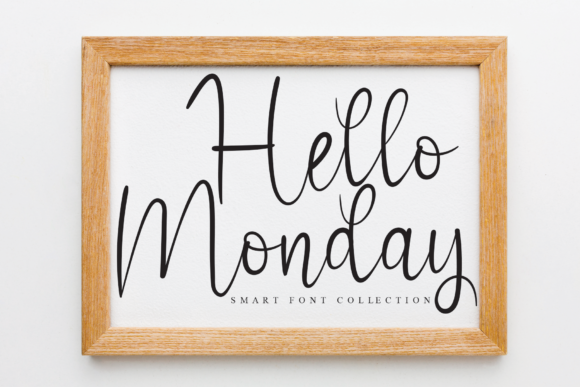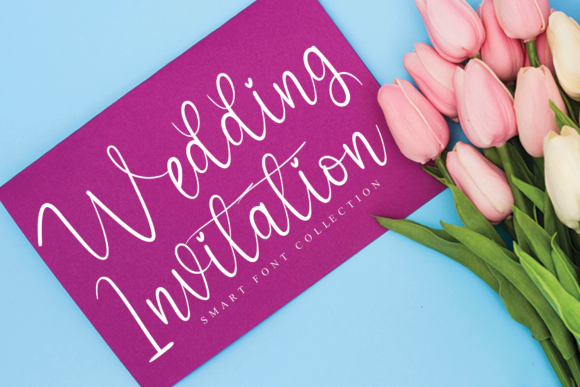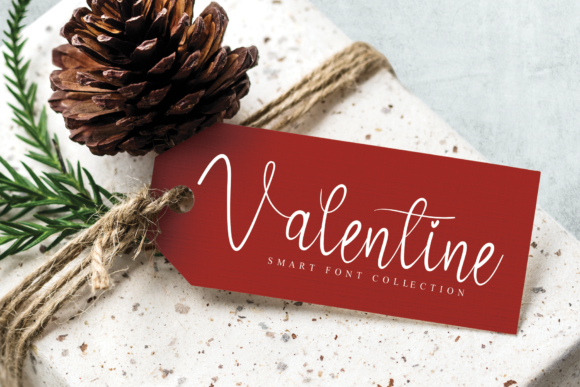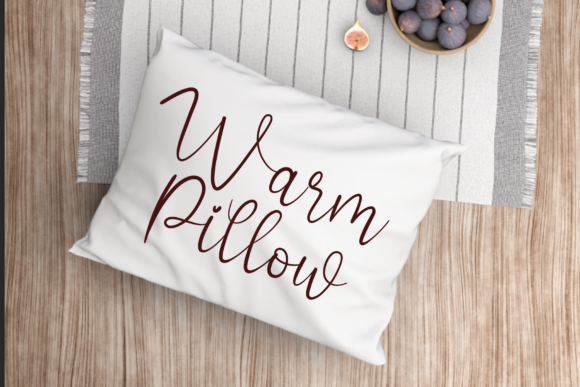
Introducing Anilla Font: The Elegant and Dainty Handwritten Font for Crafty Ideas
Are you a designer or crafter looking for a unique and elegant font to elevate your creative projects? Look no further than Anilla Font, a beautiful handwritten font that features sweet and delicate swashes. With its original look and versatility, Anilla Font is perfect for a wide range of crafty ideas, from letterheads and titles to stationery and more.
The Characteristics of Anilla Font
Anilla Font is a true gem in the world of typography. Its elegant and dainty design makes it perfect for projects that require a touch of sophistication and whimsy. The font features:
• Sweet and delicate swashes: Add a touch of elegance to your designs with Anilla Font’s beautiful swashes, carefully crafted to add a touch of whimsy to your text.
• Handwritten charm: Anilla Font has a distinctly handwritten feel, making it perfect for projects that require a personal touch.
• Versatile design: Whether you’re creating letterheads, titles, stationery, or any other type of design, Anilla Font is the perfect choice.
Uses for Anilla Font
Anilla Font is a versatile font that can be used for a wide range of crafty ideas, including:
• Letterheads and titles: Add a touch of elegance to your business letters and titles with Anilla Font’s sophisticated design.
• Stationery: Create beautiful stationery, including greeting cards, invitations, and more, with Anilla Font’s delicate swashes and handwritten charm.
• Branding and packaging: Use Anilla Font to create unique and eye-catching branding and packaging designs that will set your products apart.
• Digital designs: Anilla Font is perfect for digital designs, including social media graphics, blog headers, and more.
Why Choose Anilla Font?
With so many fonts to choose from, why should you choose Anilla Font? Here are just a few reasons:
• Unique design: Anilla Font has a unique and original design that will set your projects apart from the crowd.
• Elegant and sophisticated: Anilla Font’s elegant and sophisticated design makes it perfect for projects that require a touch of refinement.
• High-quality: Anilla Font is a high-quality font that is designed to produce crisp and clear text, even at small sizes.
Tips for Using Anilla Font
Here are a few tips for using Anilla Font to get the most out of this beautiful font:
• Use it sparingly: Anilla Font is a elegant and sophisticated font, so use it sparingly to add a touch of refinement to your designs.
• Experiment with swashes: Anilla Font’s swashes are a key feature of the font, so experiment with different swash combinations to add visual interest to your designs.
• Pair it with other fonts: Anilla Font pairs well with other fonts, so don’t be afraid to experiment with different font combinations to create a unique look.
Anilla Font is a beautiful and elegant handwritten font that is perfect for crafty ideas, from letterheads and titles to stationery and more. With its delicate swashes and handwritten charm, Anilla Font is sure to add a touch of sophistication and whimsy to your designs. Whether you’re a designer or crafter, Anilla Font is a great choice for anyone looking for a unique and versatile font.